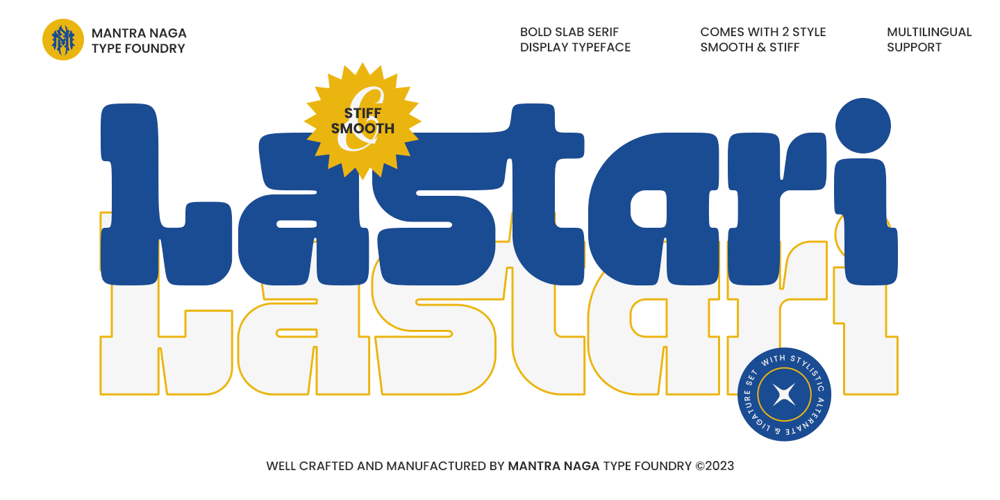
Lastari
Lastari font
Lastari Font Family was designed by Fredo Eka Pratama and published by Mantra Naga Studio. Lastari contains 2 styles and family package options. Lastari – a Bold Slab Serif Display Typeface. This typeface has many alternatives with swashes that can make your lettering/logotype more attractive.This font is suitable for logos and various other formal forms, such as invitations, labels, logos, magazines, books, greeting/wedding cards, packaging, fashion, makeup, stationery, novels, labels, or advertising. This font is PUA encoded, which means you can access all of the glyphs and swashes with ease!